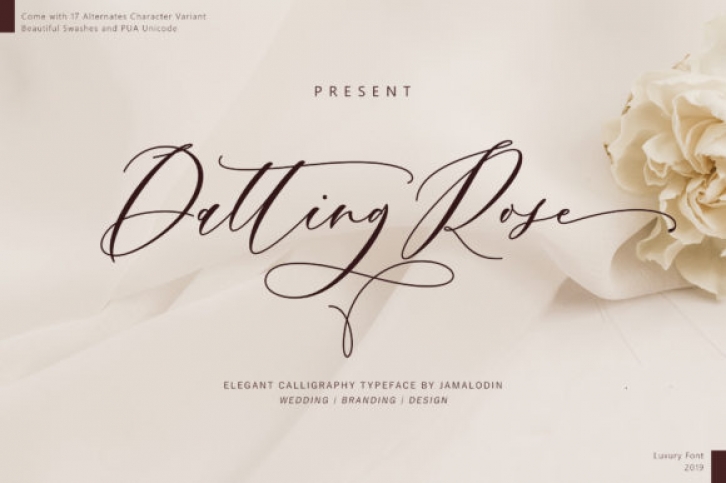
Datting Rose is a delicate and elegant handwritten font. Its distinct and well rounded letters make this font a masterpiece. Fall in love with its incredibly versatile style and use it to create spectacular designs!